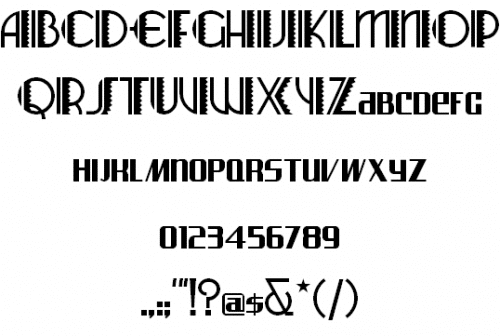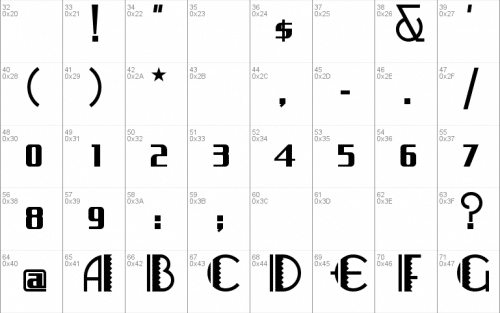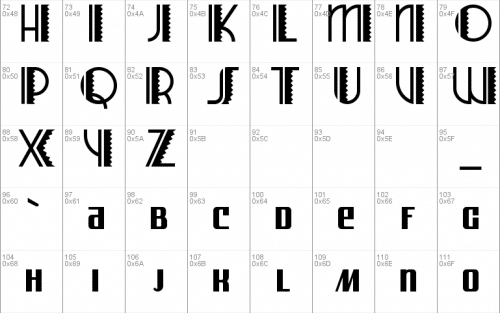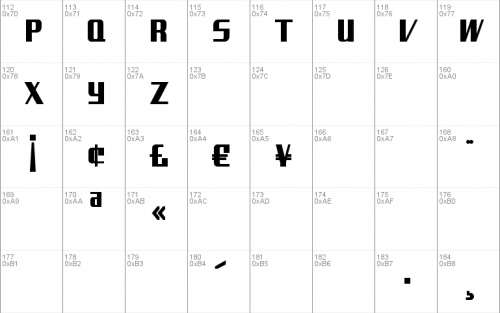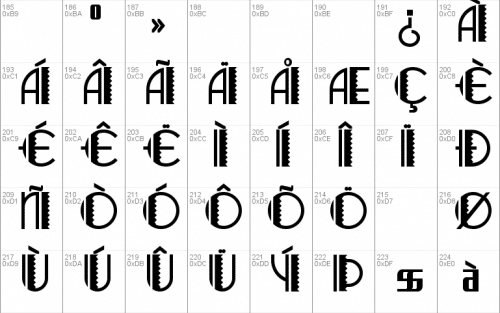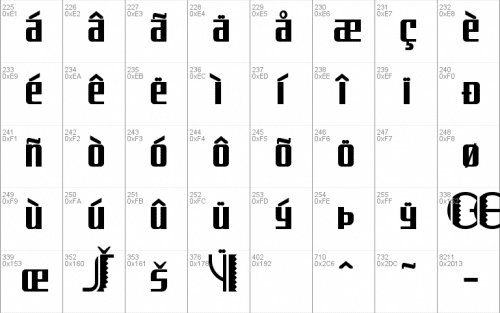
Saw this typeface on a travel brochure, circa 1948, for this regional air carrier, and really liked it. I suppose that the uppercase A was supposed to suggest an Apache war bonnet; in any event, it makes an arresting display face.